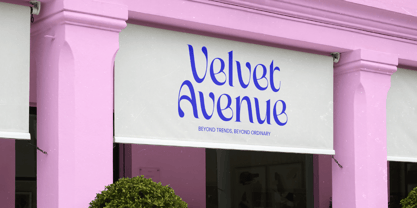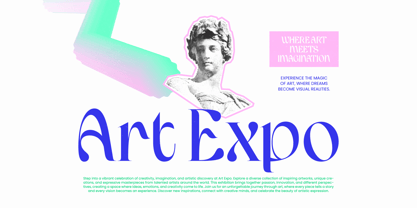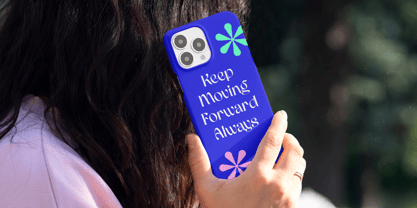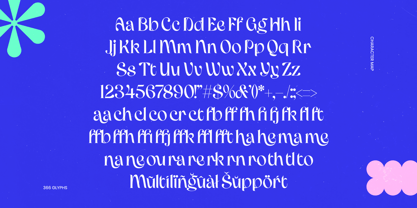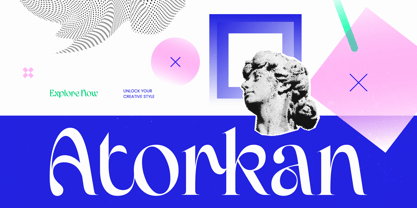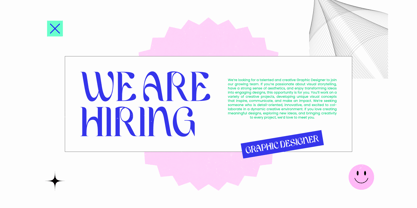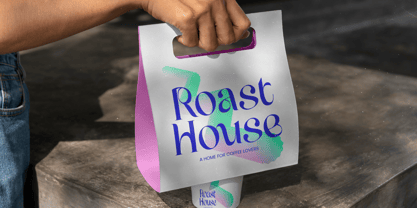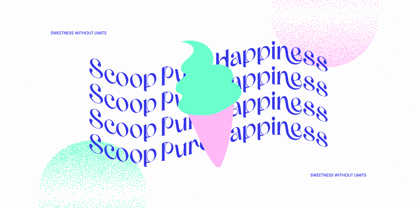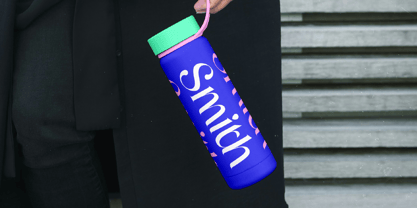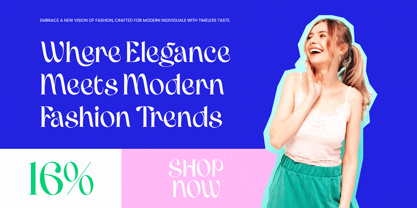
Atorkan
by Timelesstype Studio
The Atorkan Font Family was designed by Heru Utama Putra and published by Timelesstype Studio. Atorkan contains 2 styles and family package options. More about this family
Step into a world where timeless sophistication meets contemporary flair with the stunning Atorkan. This typeface captures the essence of high-end design, offering a unique visual journey for every creative project.
Drawing inspiration from classical aesthetics and the bold energy of modern graphic art, this font blends traditional serif structures with fluid, expressive curves. It evokes an atmosphere of refined art galleries and avant-garde fashion runways where history and the future collide.
Designed for maximum visual influence, this modern serif display delivers a sense of luxury typography through its high-contrast serif strokes. It serves as an essential editorial font for designers seeking a significant branding impact that resonates with premium audiences.